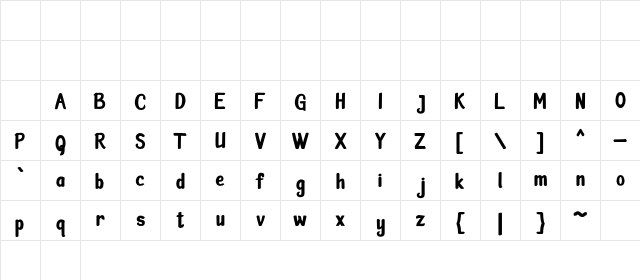
Complete Pinklineryh Regular glyph index. Displaying only characters natively supported by Pinklineryh Regular font.
Pinklineryh is a composed and adaptable typeface that performs quietly and consistently across a wide range of design contexts.
Pro Tip: Use Pinklineryh in both headline and body roles to test its range before committing to a single application.